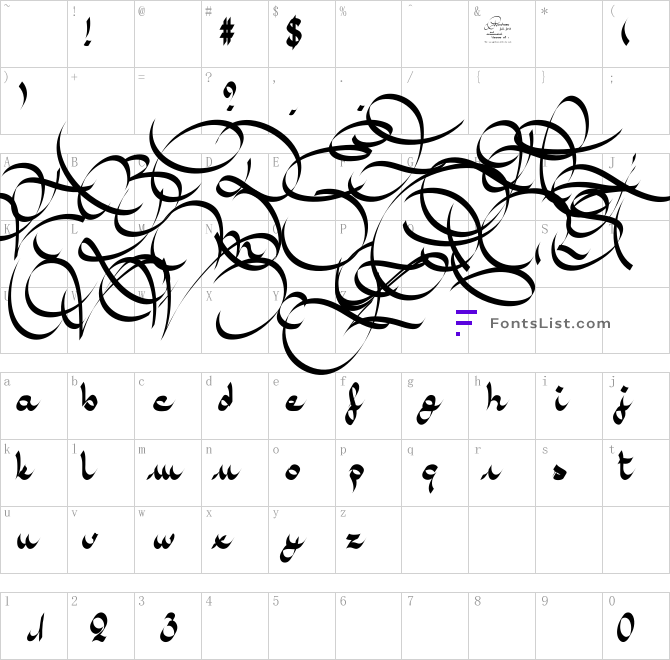
Amaldemo-Bold.ttf is a very beautiful artistic font, Amaldemo-Bold.ttf is widely used in the design and printing of various books and pictures,Amaldemo-Bold.ttf has a strong visual impact,Amaldemo-Bold.ttf is a commonly used font in newspapers, magazines and books, and is used in posters, e-commerce Poster design, store design, logo design, font design and other fields.Amaldemo-Bold.